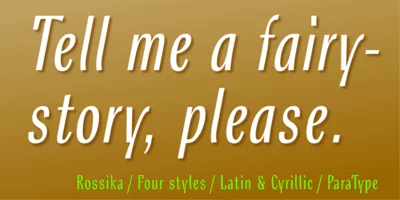
Rossika Font
Rossika Font is ideal for Russian cultural events, Eastern European branding, Slavic heritage materials, traditional vodka packaging, Orthodox church publications, historical documentaries, cultural festival promotions, ethnic restaurant menus, folk art exhibitions, and authentic European communications. This distinguished typeface creates genuine Slavic atmosphere in both traditional print and contemporary digital applications.
What makes Rossika Font exciting is its authentic embodiment of Russian typographic traditions with refined contemporary sophistication. The font features characteristic Cyrillic-inspired letterforms with traditional Slavic proportions and cultural authenticity that evoke the rich heritage of Eastern European design. Its distinguished character design establishes an atmosphere of cultural pride and historical depth that resonates with audiences appreciating Slavic traditions.
Rossika Font family includes cultural variations: Light, Regular, Medium, Bold, and Traditional versions, each with authentic alternates and Cyrillic character support. Each variant maintains the font's cultural integrity while providing designers with authentic options for creating traditional typography systems and Eastern European communication materials.
This exceptional cultural typeface brings authentic Slavic credibility to projects requiring traditional presentation. Whether you're designing Russian cultural materials, Eastern European branding, or heritage marketing campaigns, Rossika Font delivers outstanding authenticity and cultural sophistication. The font's traditional proportions and Slavic details ensure memorable cultural connection across various heritage applications.